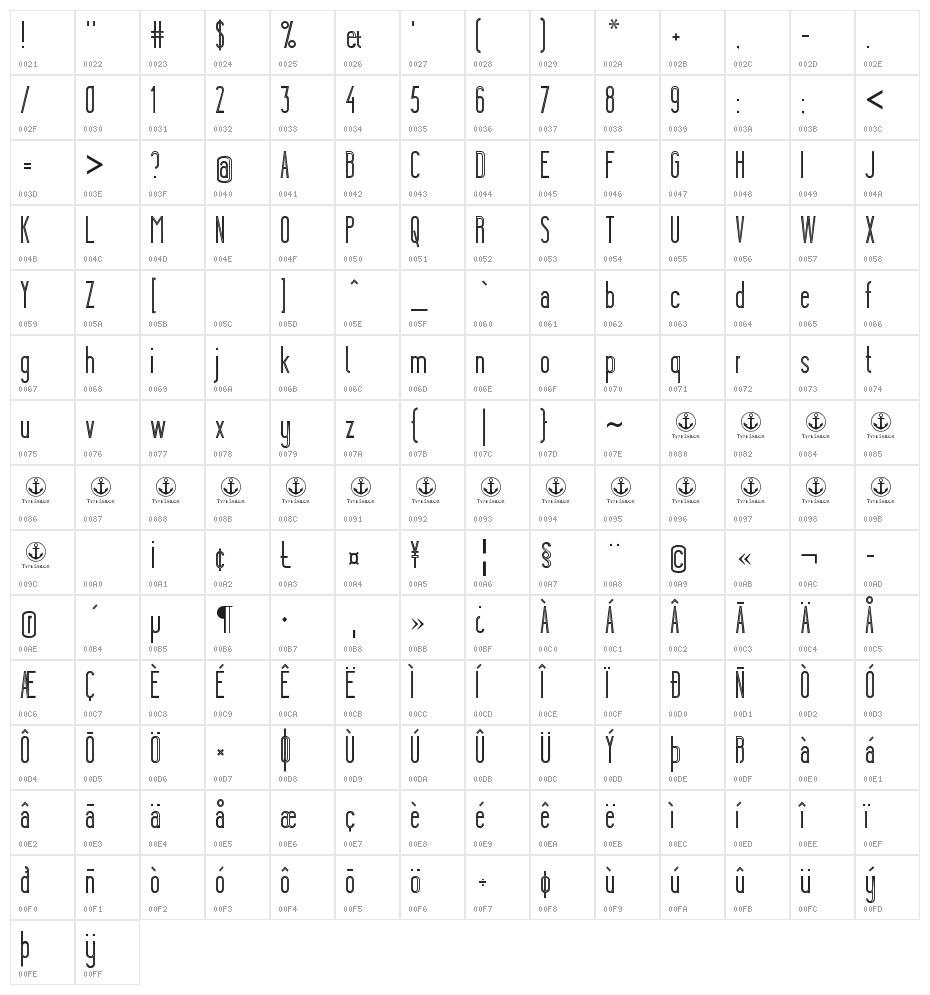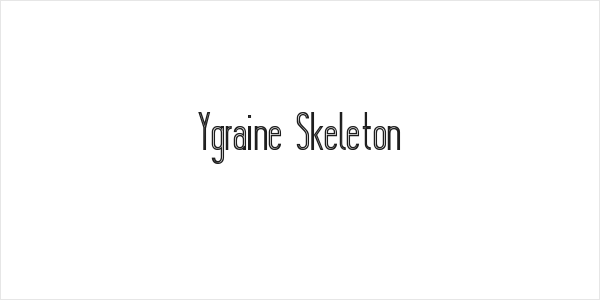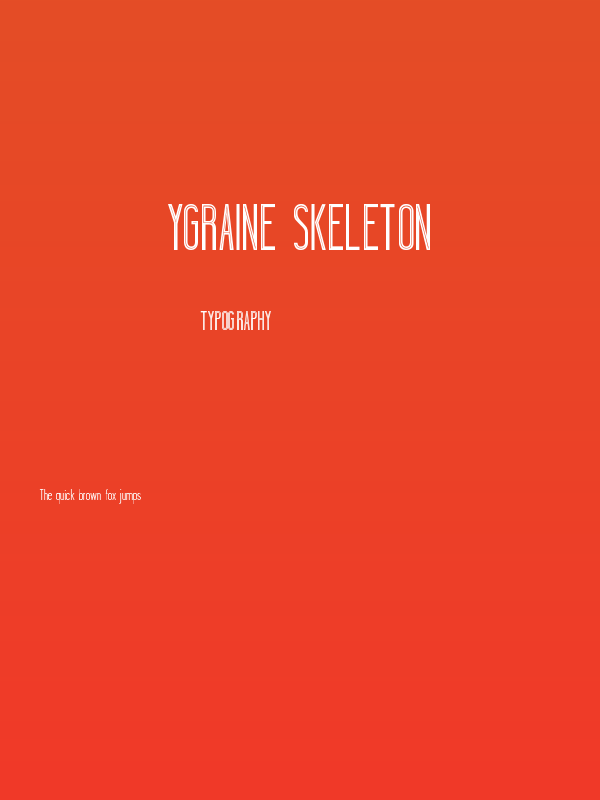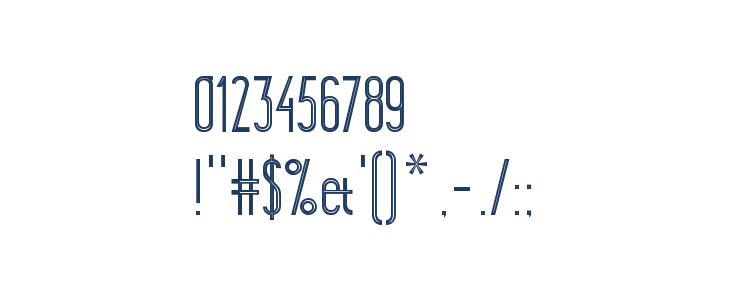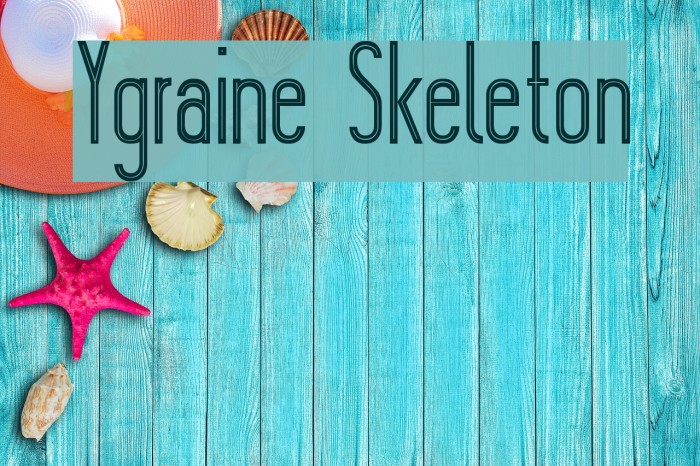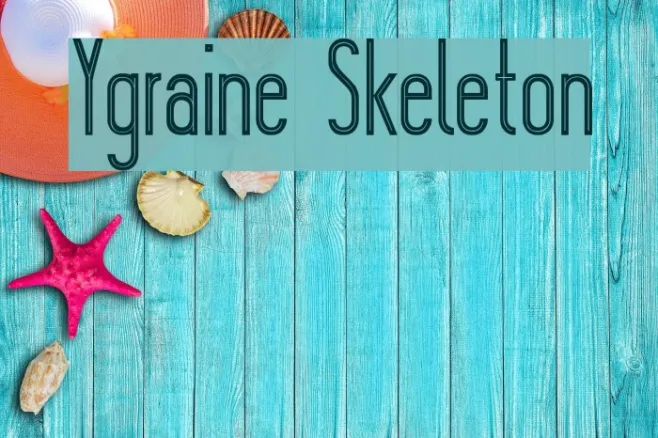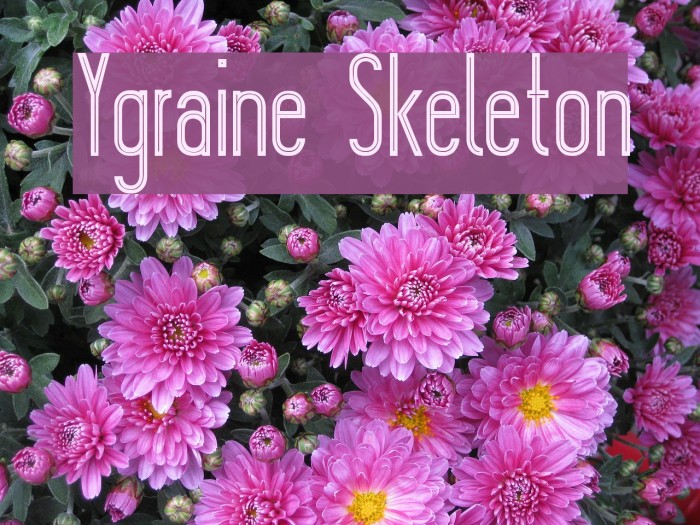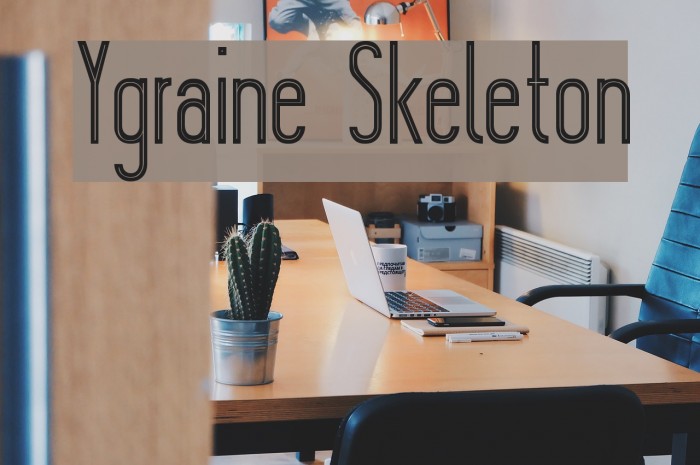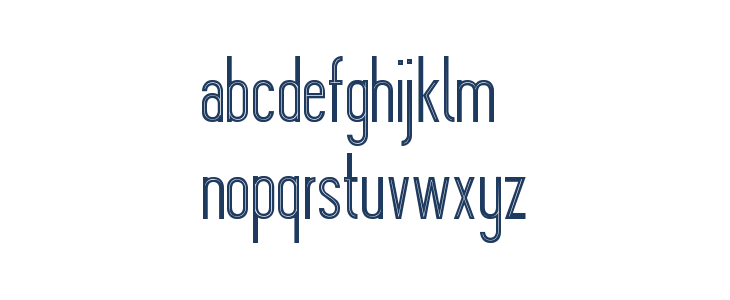
Ygraine Skeleton Font
Ygraine Skeleton Description
This font features a tall, narrow design with clean, geometric lines, giving it a modern and sophisticated appearance. The characters are elongated and have a consistent stroke width, which adds to its sleek and minimalistic style. The uppercase and lowercase letters maintain a uniform height, creating a harmonious look. The numerals and special characters are designed to match the overall aesthetic, ensuring a cohesive appearance across all text. This font's structure is both elegant and functional, making it suitable for various design applications.
| Proposed Projects | Ideal for branding, editorial design, posters, and digital media where a modern and sleek look is desired. |